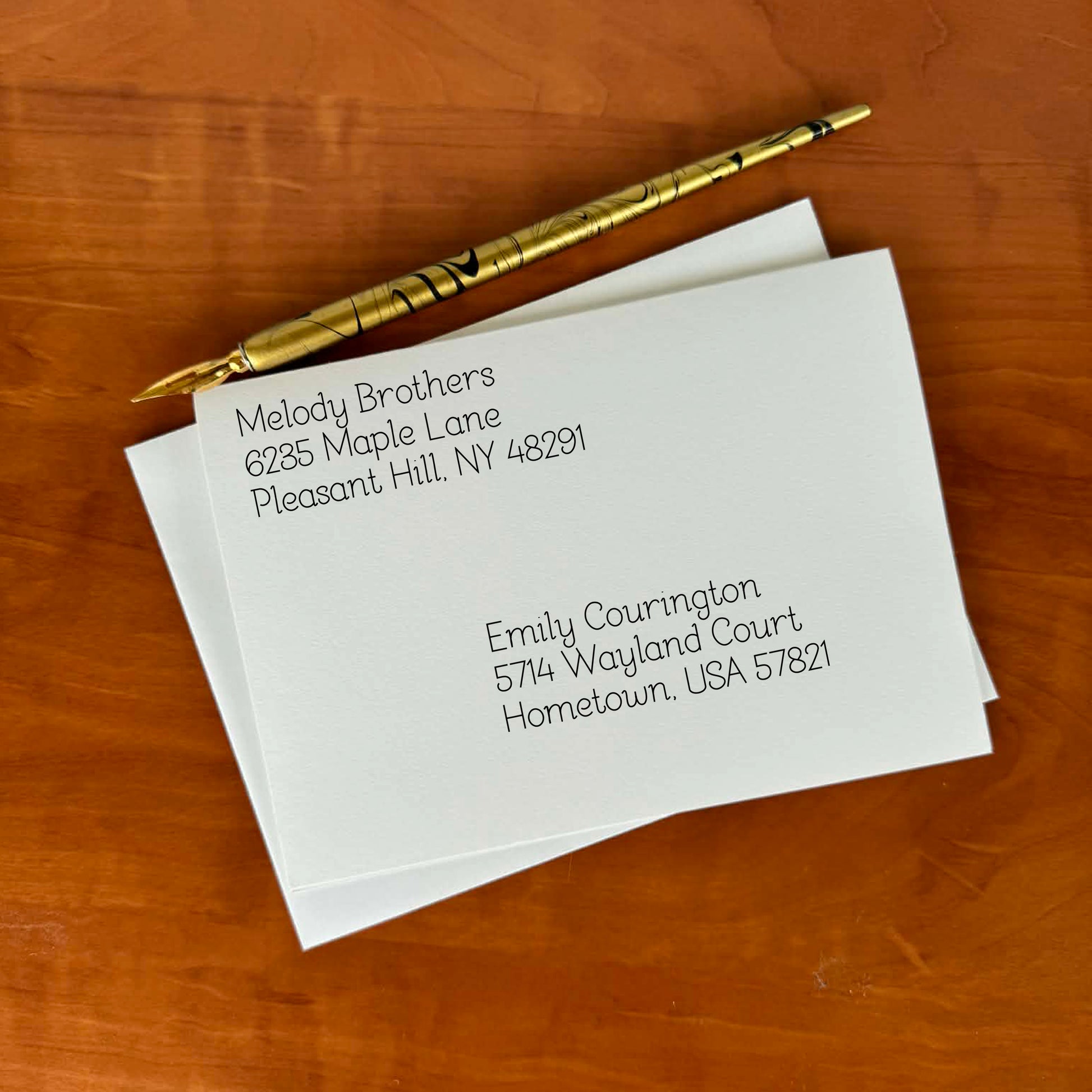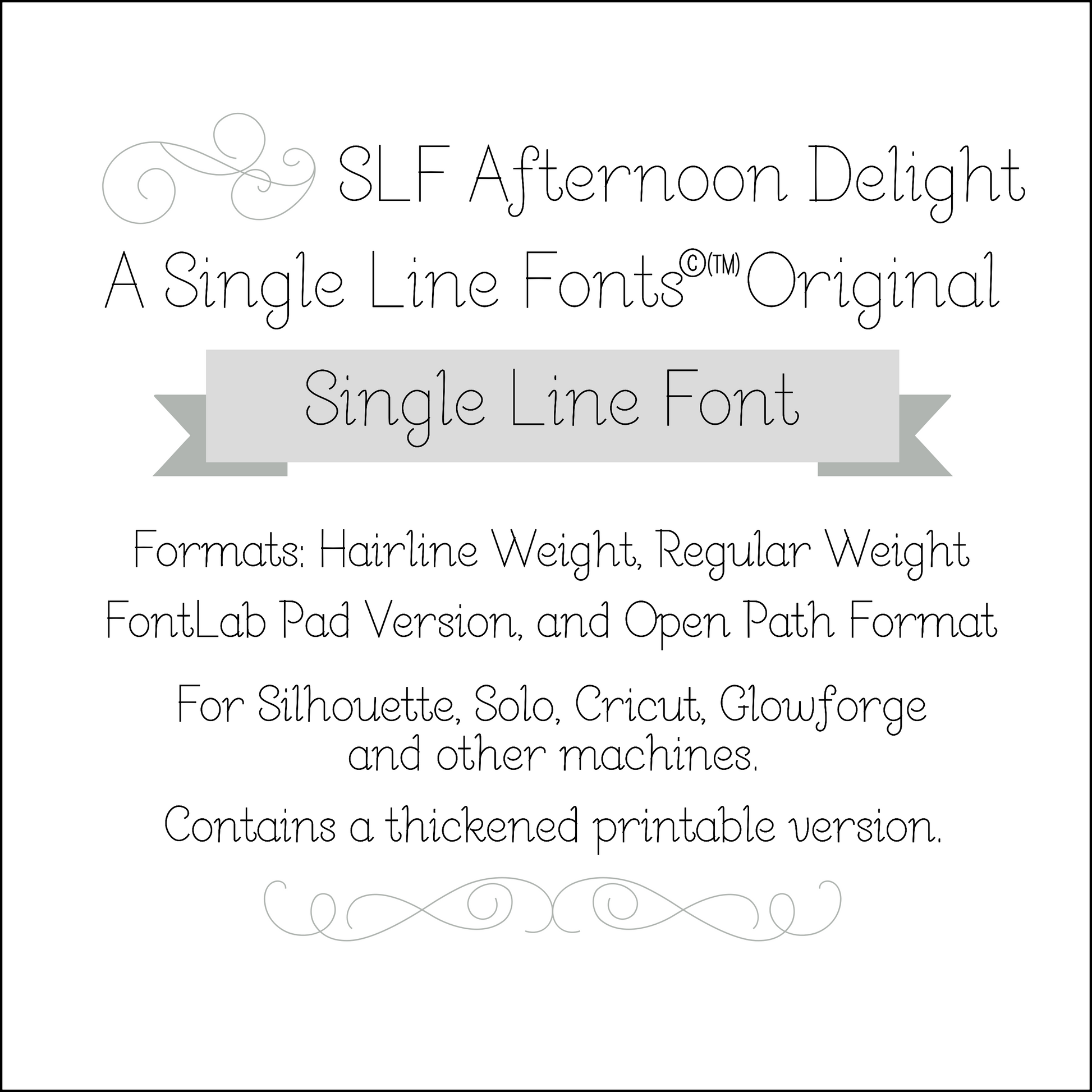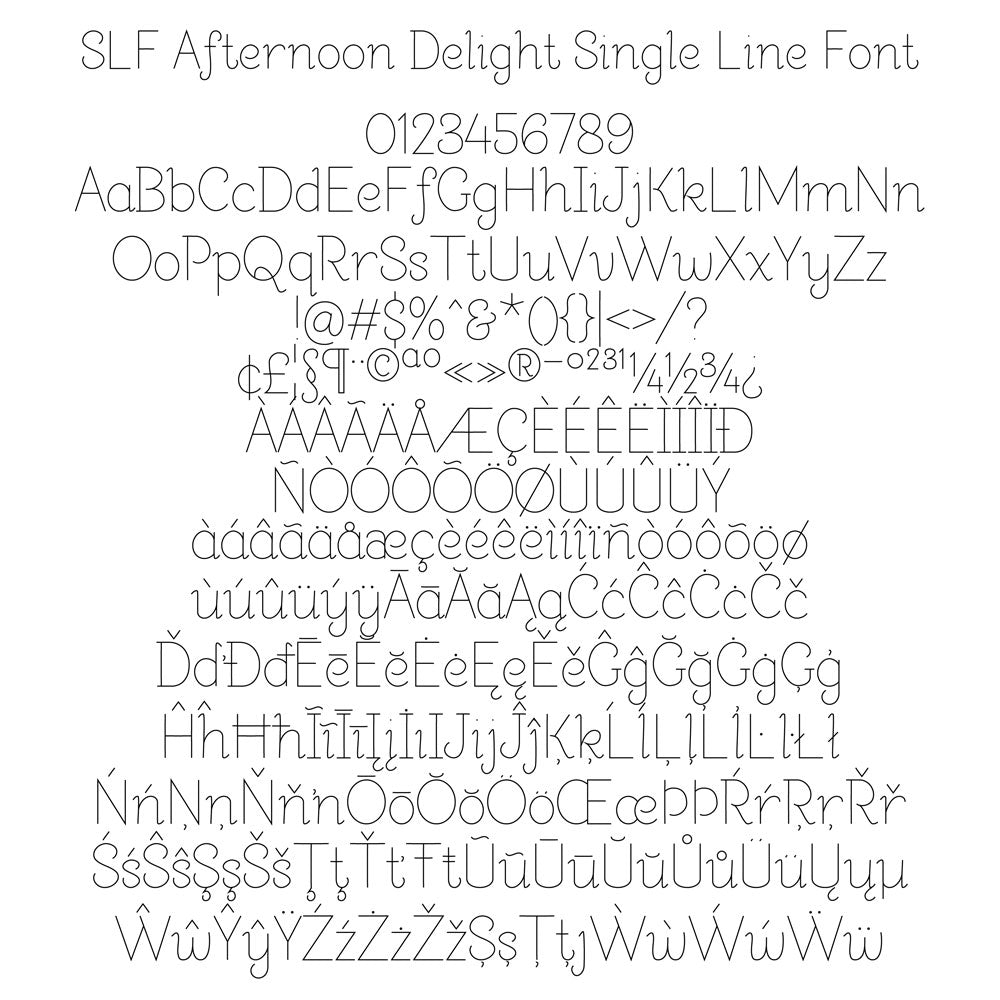
SLF Afternoon Delight – Single Line Script Font for Glowforge, Cricut & CNC
SLF Afternoon Delight is a relaxed, handwritten single line script font with a soft, flowing style. It’s perfect for engraving, scoring, sketch pens, CNC projects, journals, labels, and personalized crafts where a gentle handwritten look shines.
This monoline font includes a full character set with uppercase and lowercase letters, numbers, punctuation, and accented characters for multilingual support.